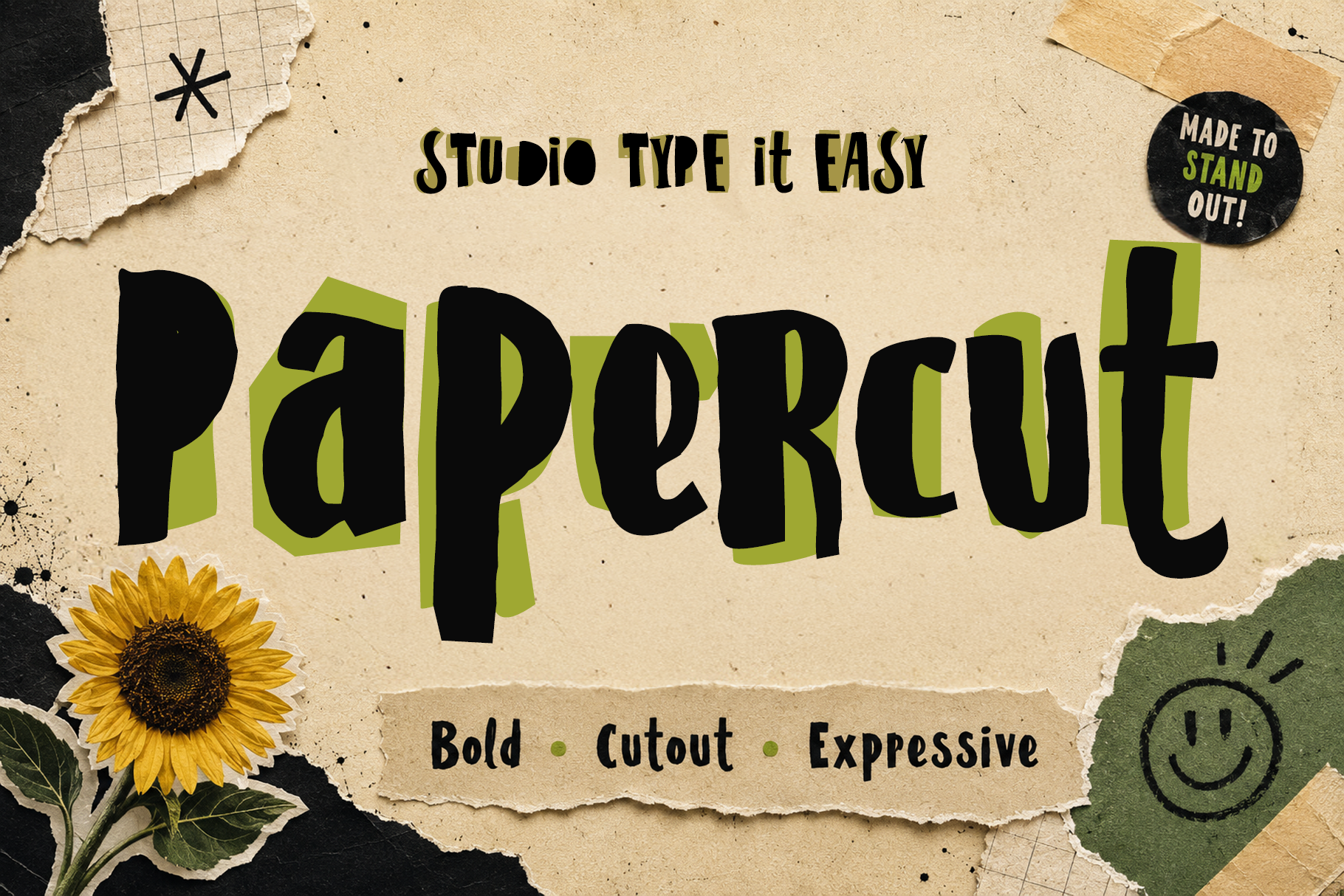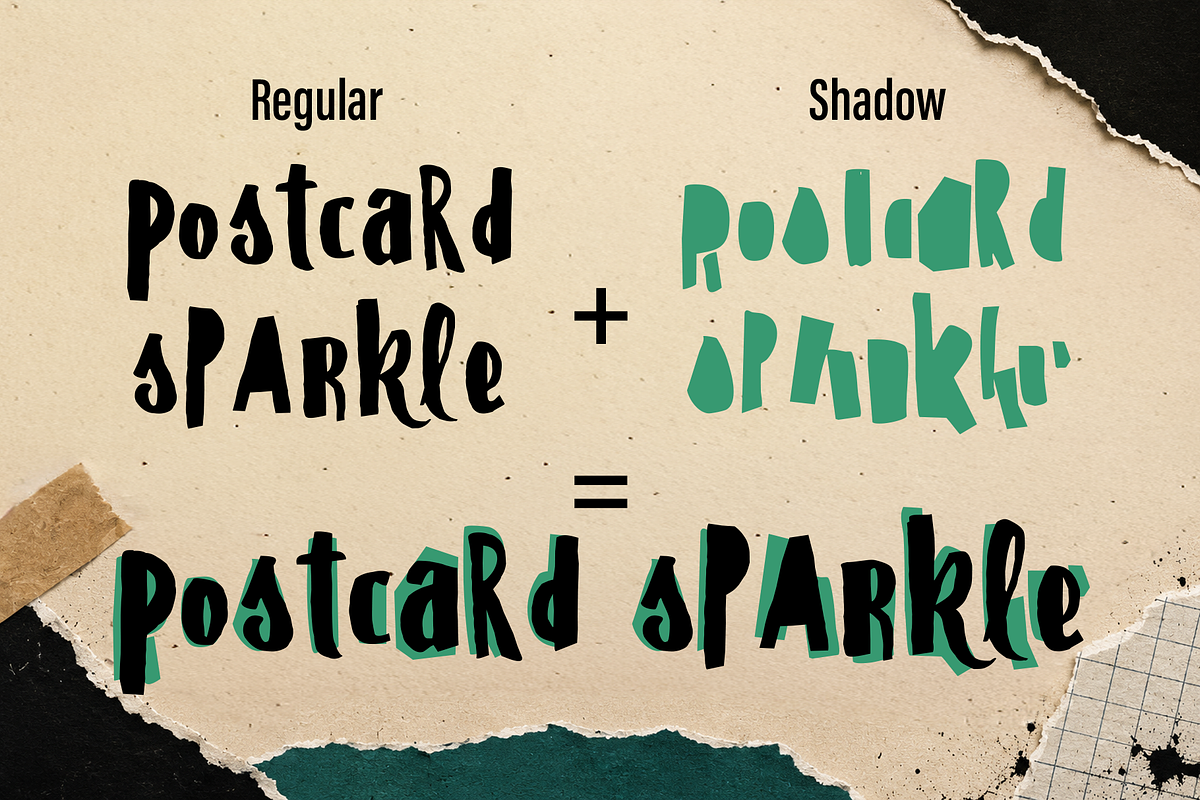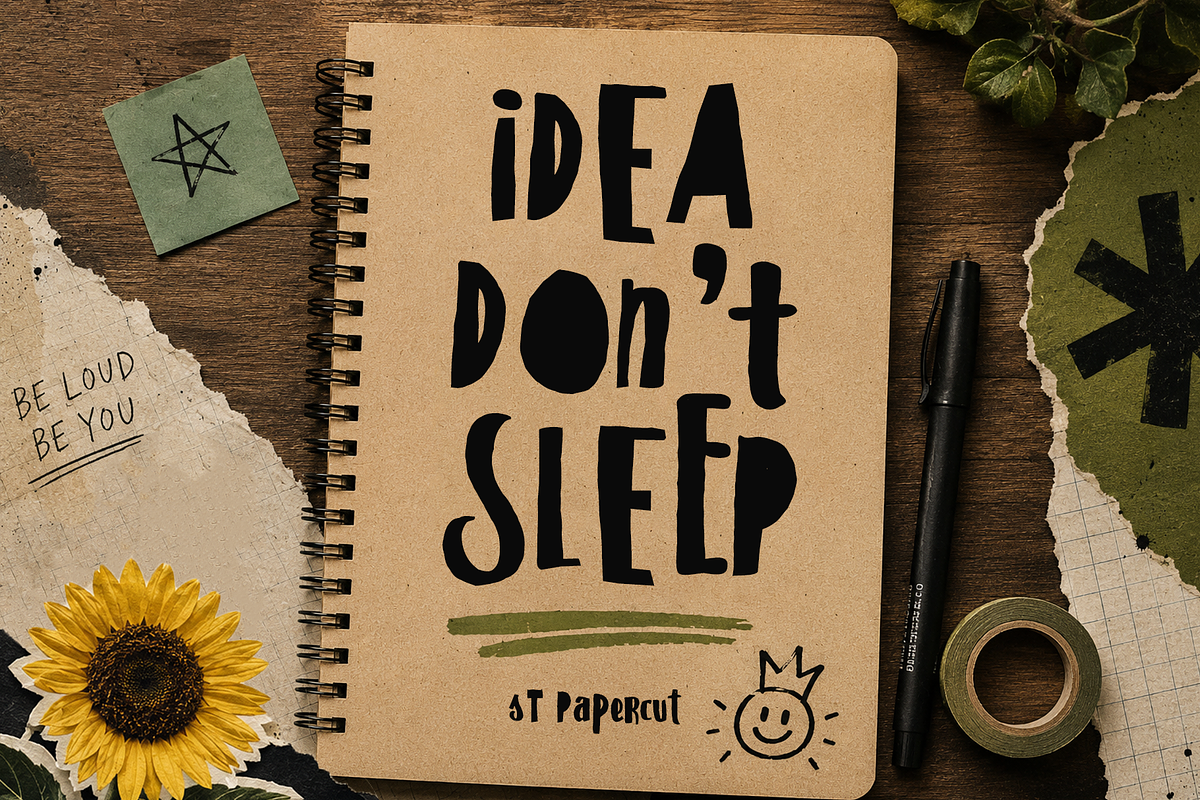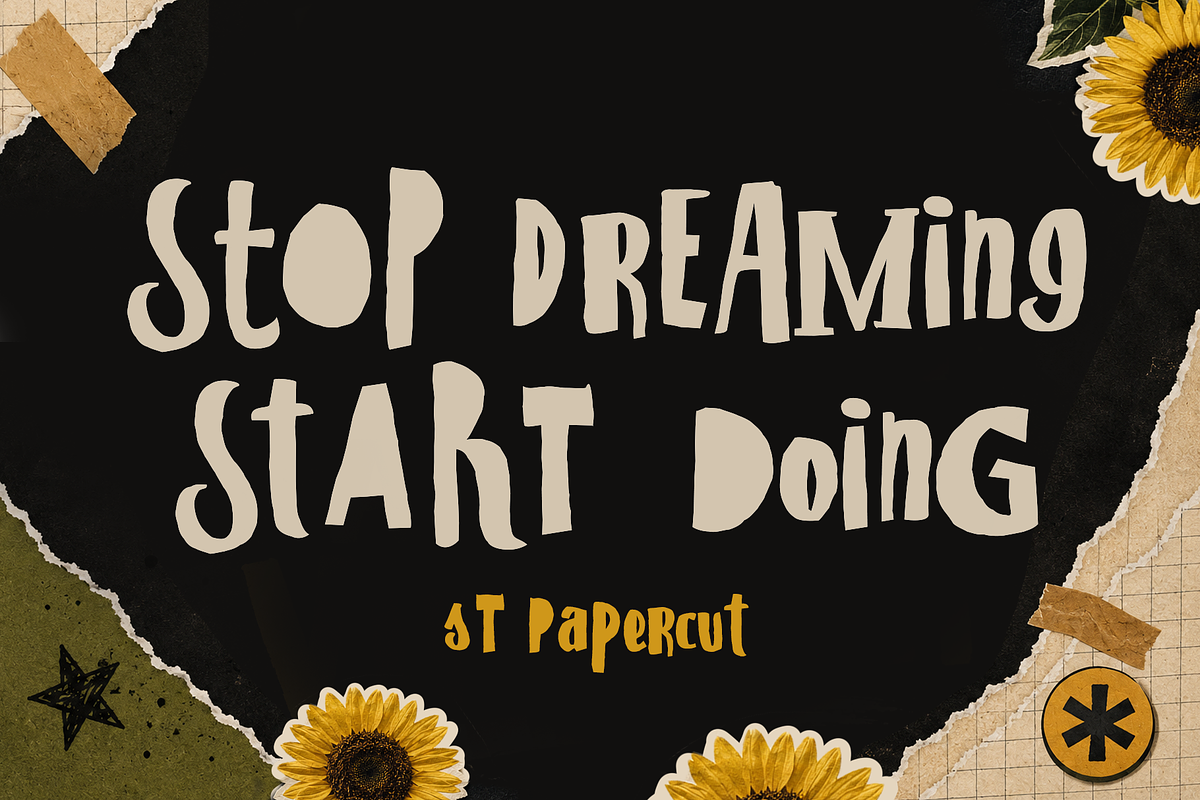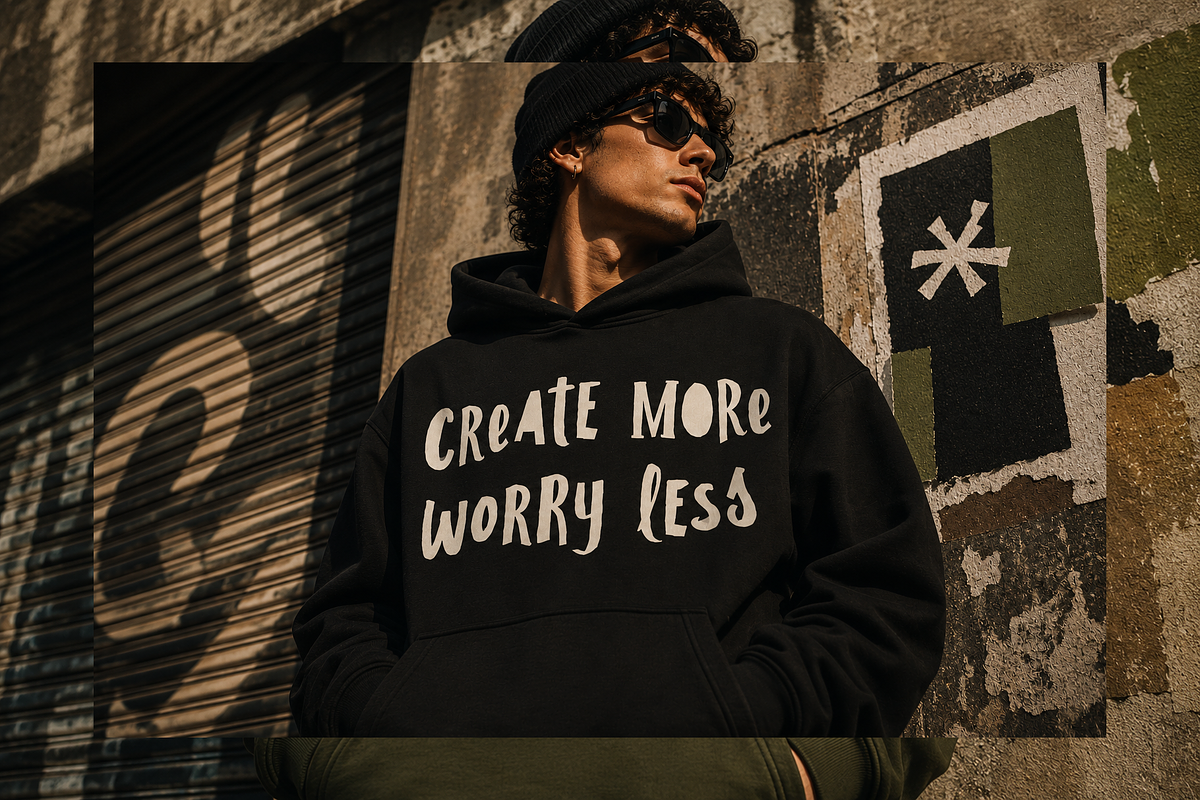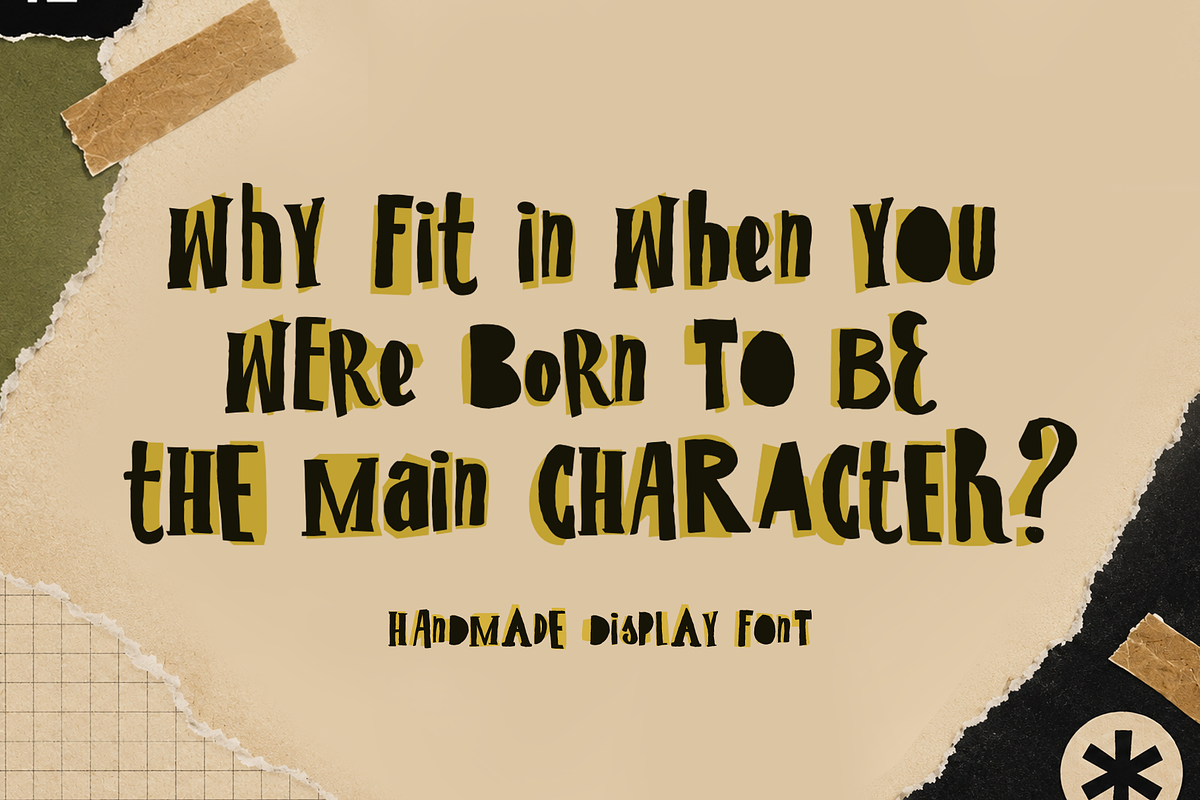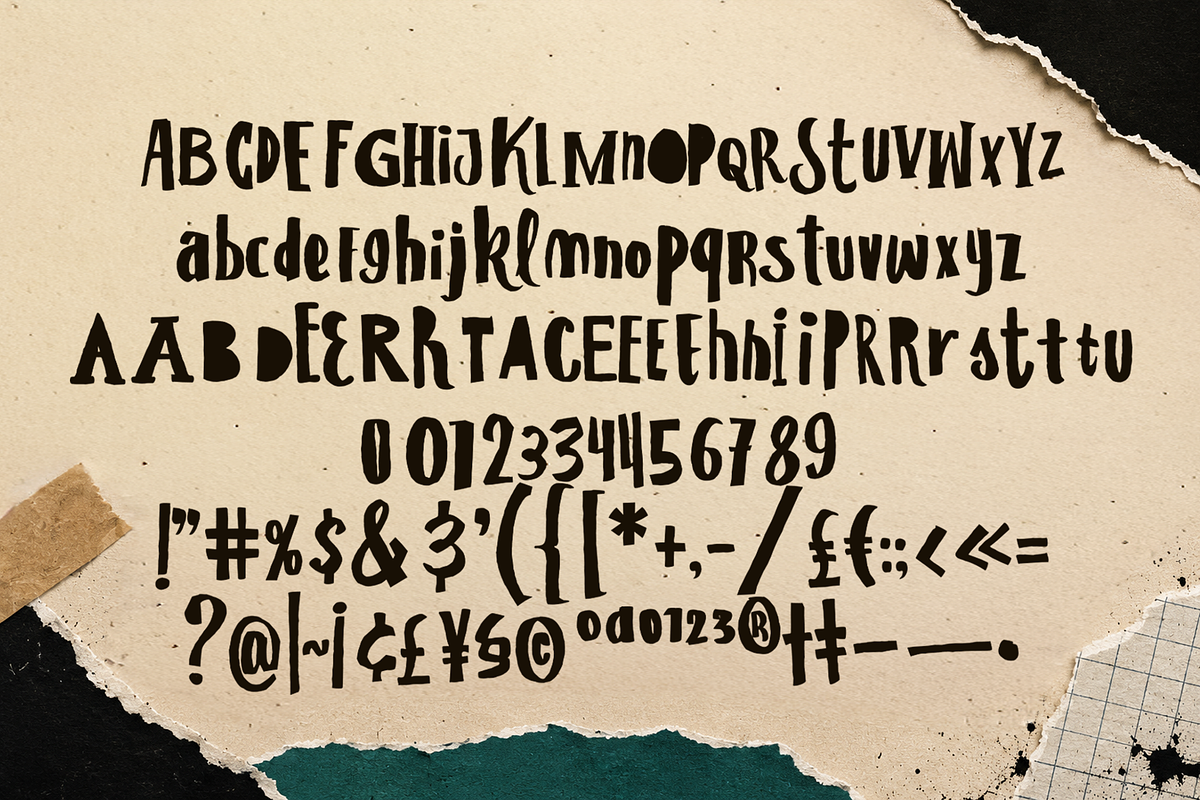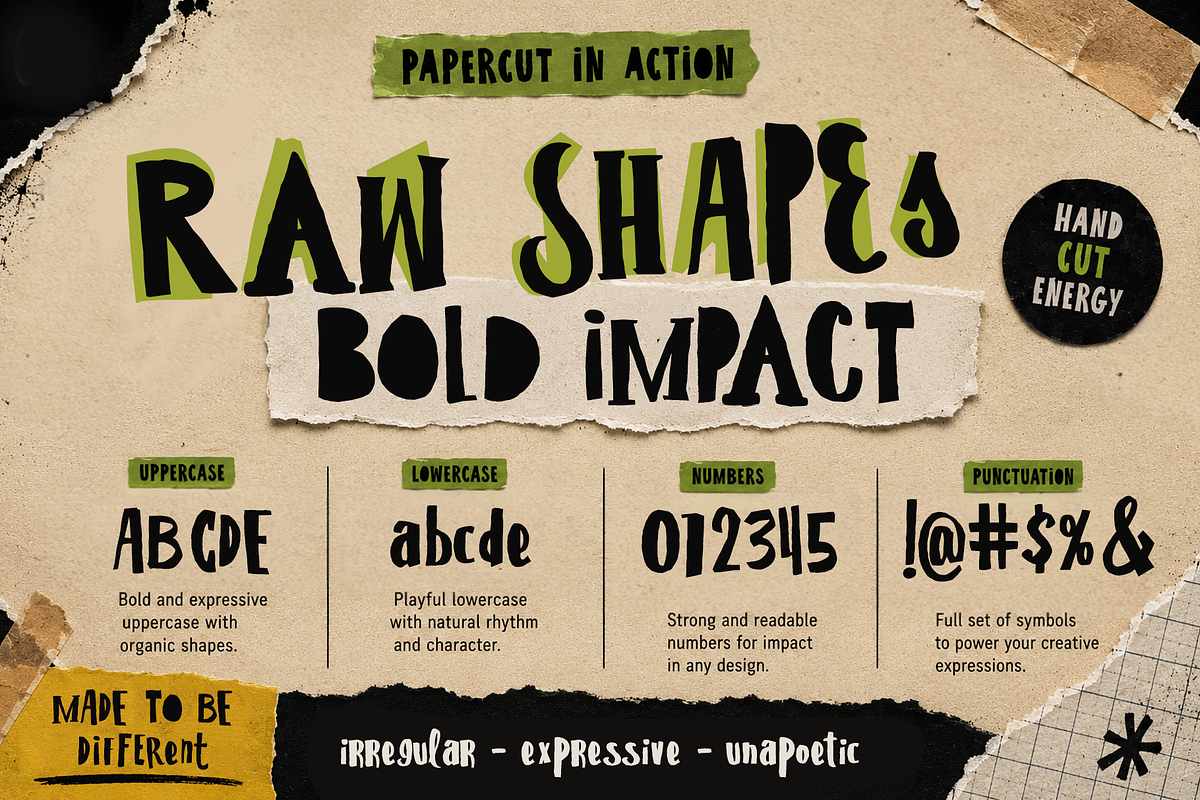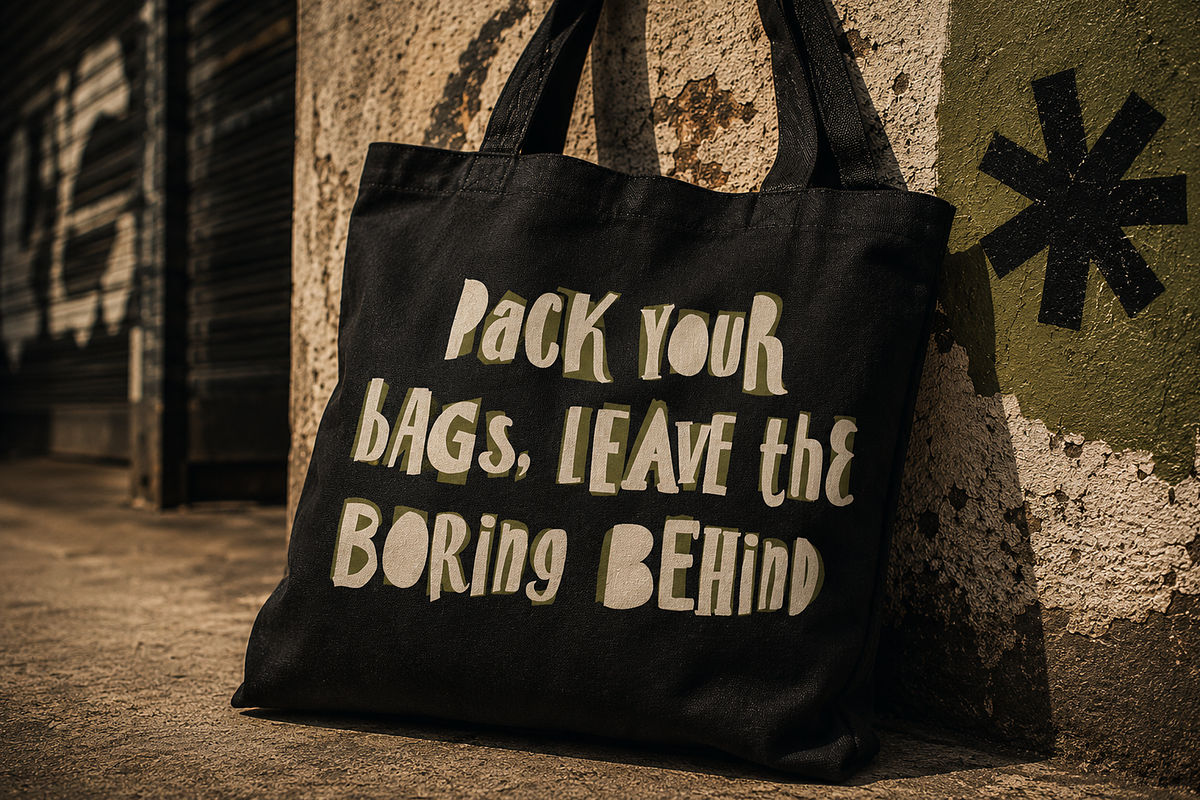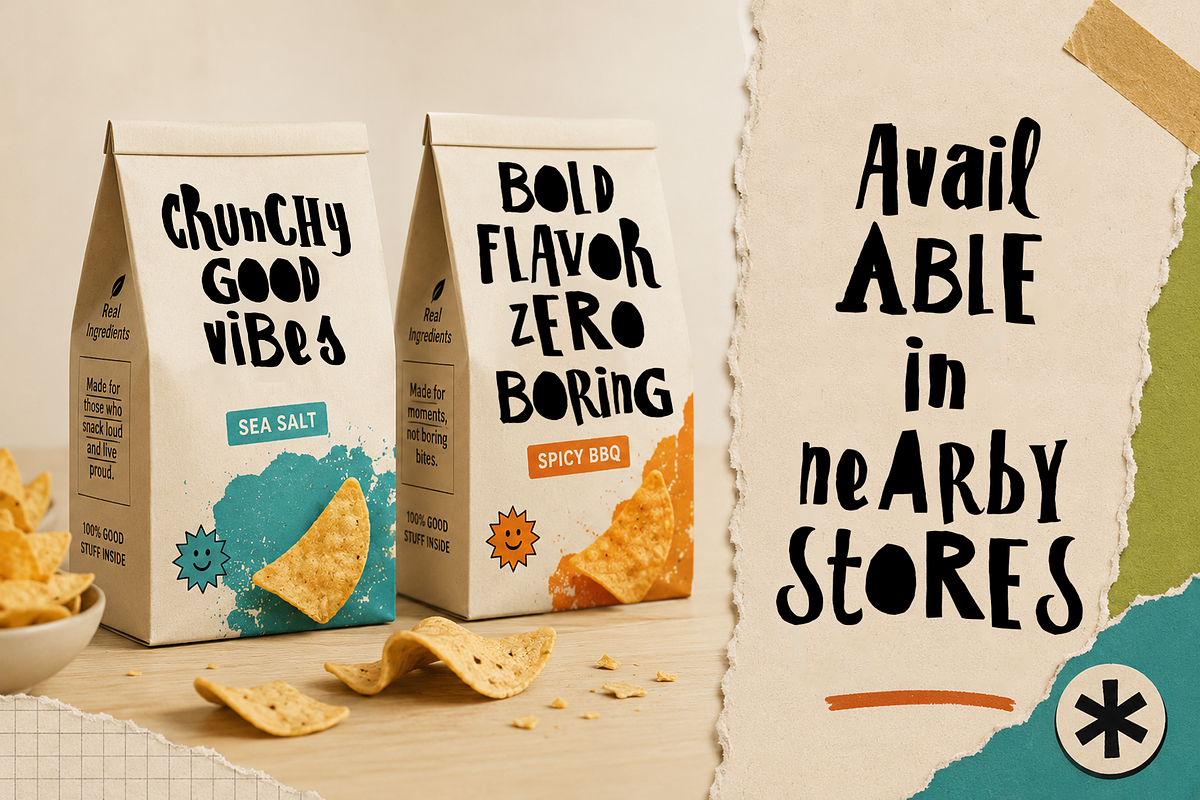
ST Papercut - Playful Handmade Font
A handmade display font with chunky cutout shapes, crooked rhythm, and \*\raw paper-collage character.\\*The letterforms are loud, irregular, and easy to read, giving posters, packaging, and social graphics the kind of visual bite that refuses to sit politely in the corner.
Use Papercut for zines, gig posters, sticker packs, kids’ branding, handmade product labels, art fair flyers, café menus, workshop graphics, album covers, quirky merch, editorial headlines, social media quotes, packaging, classroom materials, and more.
3 styles: Regular, Shadow, Rough
Uppercase & lowercase
Numerals & punctuation
Symbols
Handmade cutout style